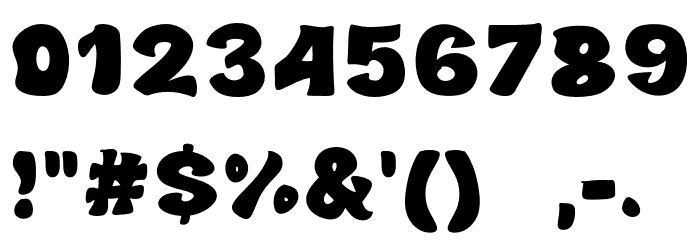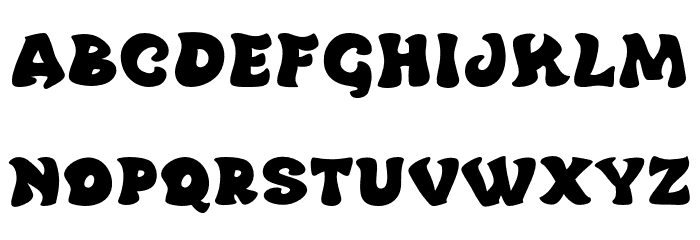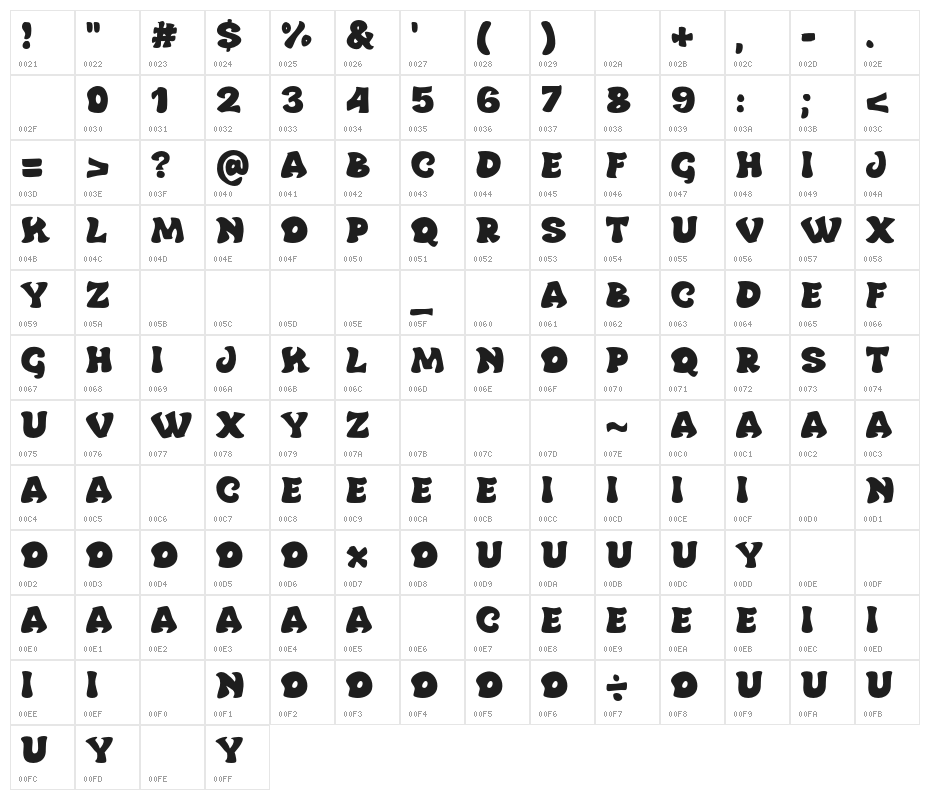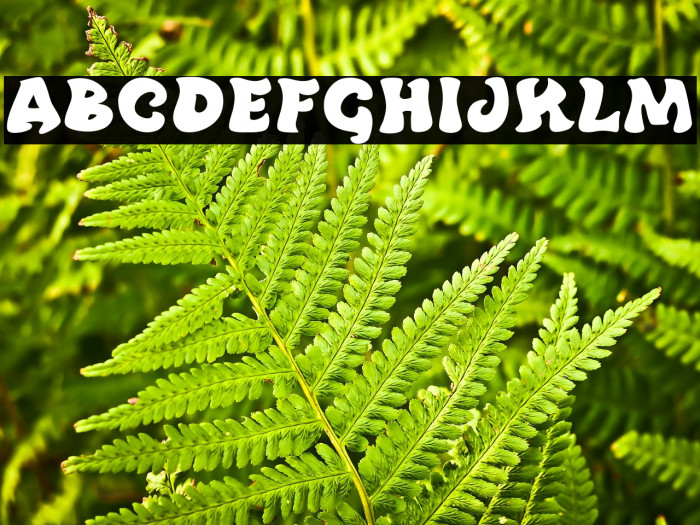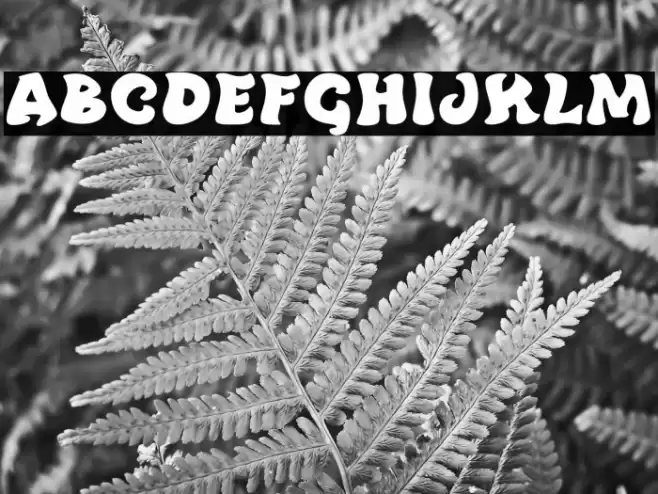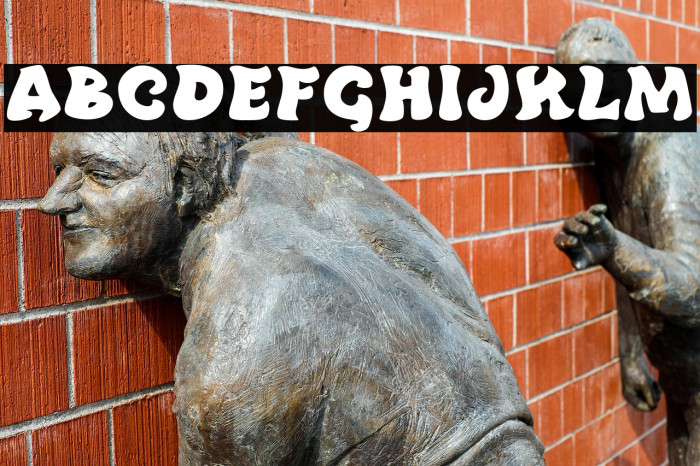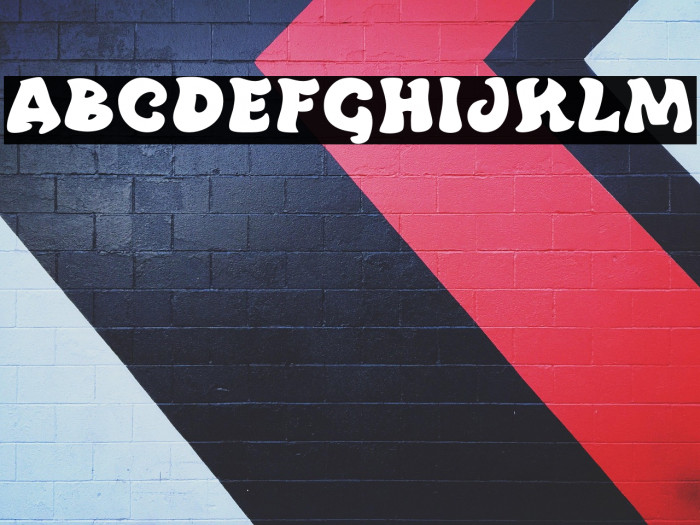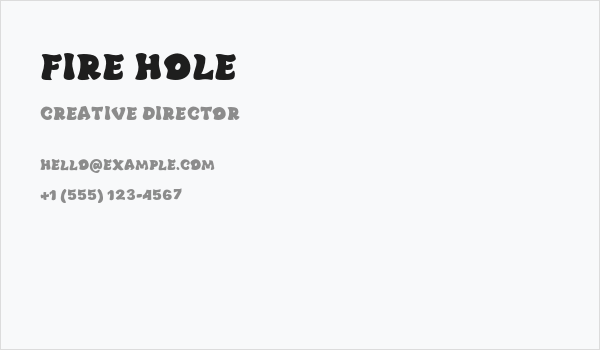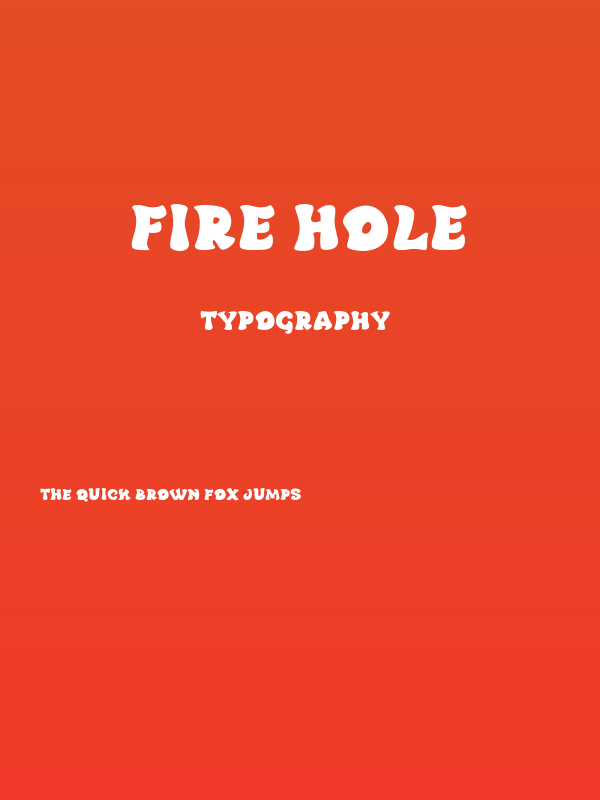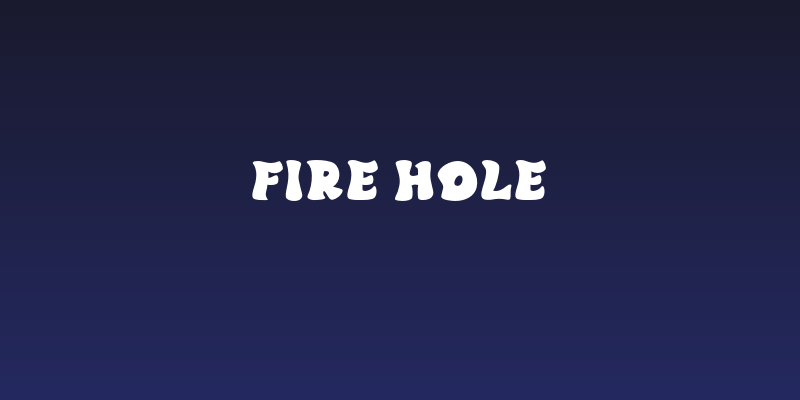
Fire Hole Font
Fire Hole Description
This font features a bold and playful design, characterized by its thick, rounded strokes and whimsical curves. The letters have a lively, almost cartoonish appearance, with exaggerated forms that give them a sense of movement and energy. The overall style is decorative, making it ideal for projects that require a fun and engaging visual impact. The numbers and special characters maintain the same playful aesthetic, ensuring consistency across all text elements.
| Proposed Projects | Ideal for children's books, playful branding, party invitations, and eye-catching posters. |